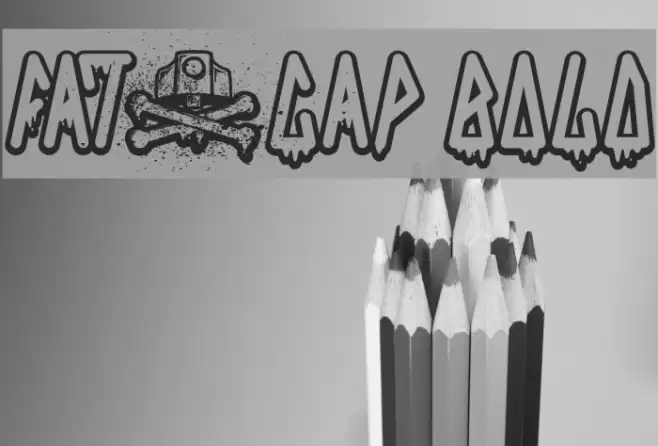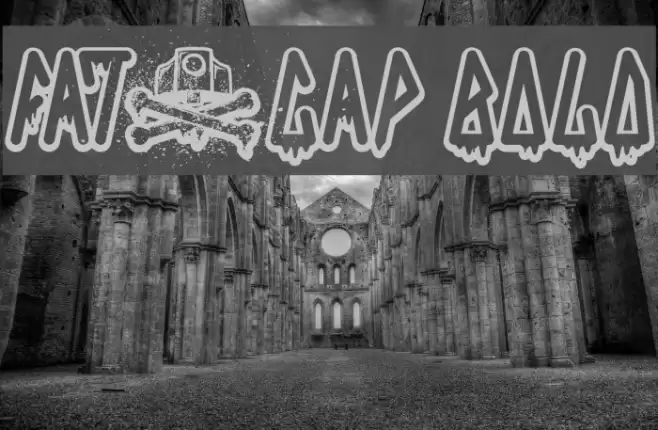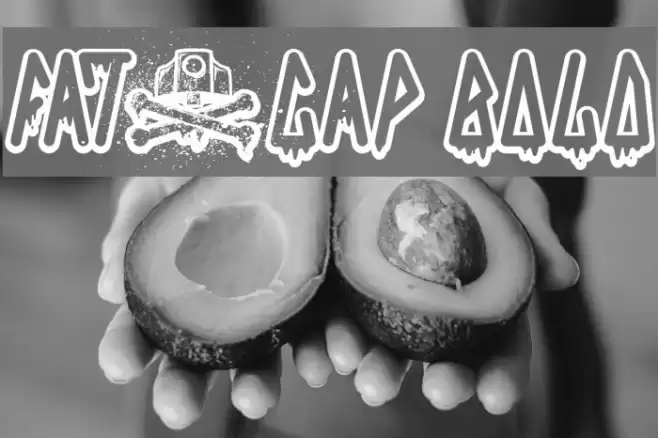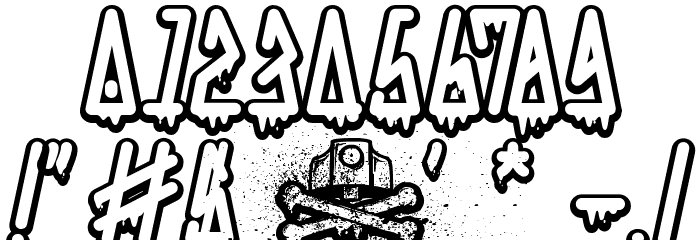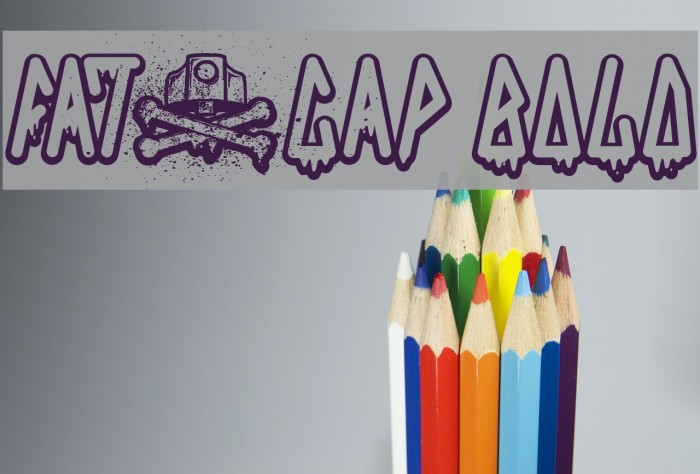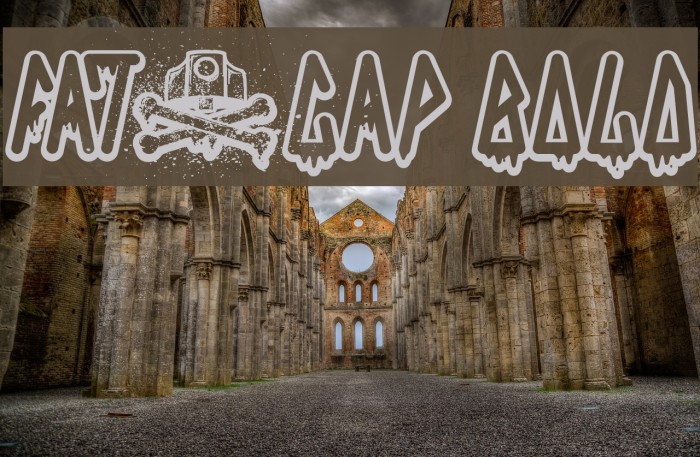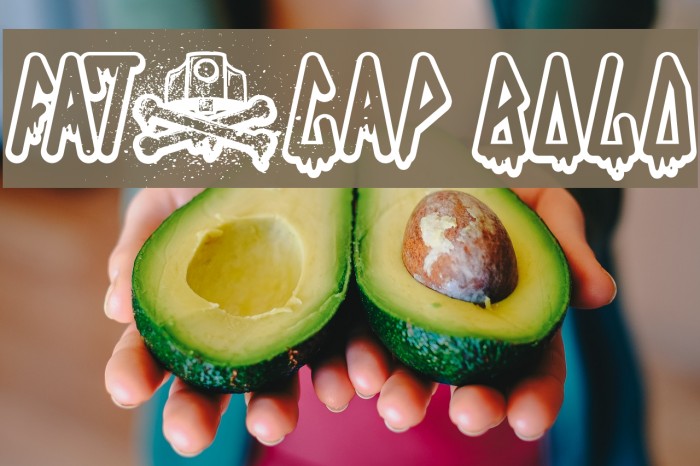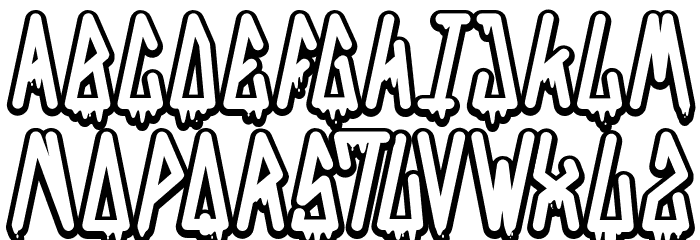
FAT&CAP Bold Font
FAT&CAP Bold Description
This font features a bold, graffiti-inspired style with a dripping effect that adds a dynamic and edgy look. The uppercase and lowercase letters maintain a consistent thickness, creating a cohesive appearance. The numbers and special characters follow the same design, ensuring uniformity across all elements. The font's playful yet rebellious aesthetic makes it ideal for projects that require a strong visual impact. Its unique style is reminiscent of street art, making it perfect for urban-themed designs. The bold strokes and dripping elements give it a distinctive character, making it stand out in any application.
A bold, graffiti-inspired font with a dripping effect, ideal for urban-themed designs from Graffiti fonts.
- Proposed Projects: Perfect for street art posters, music album covers, urban-themed branding, and graffiti-style artwork.
- Overall Style: Modern, Urban